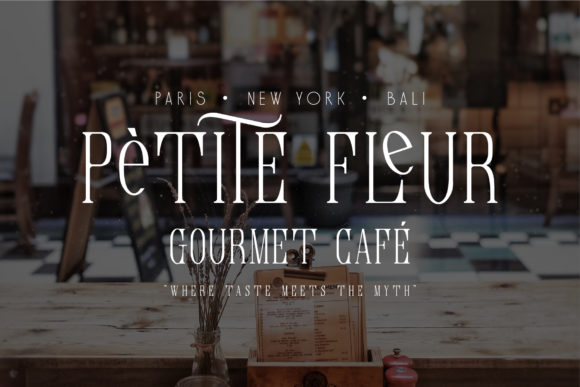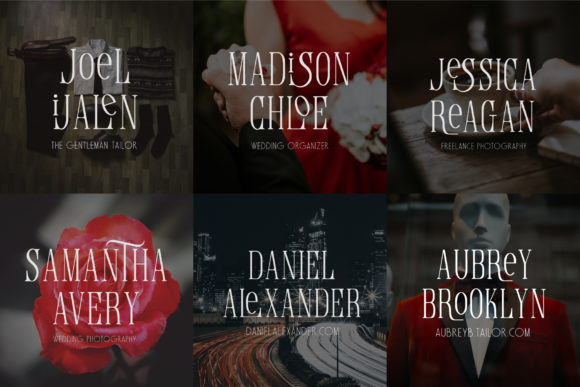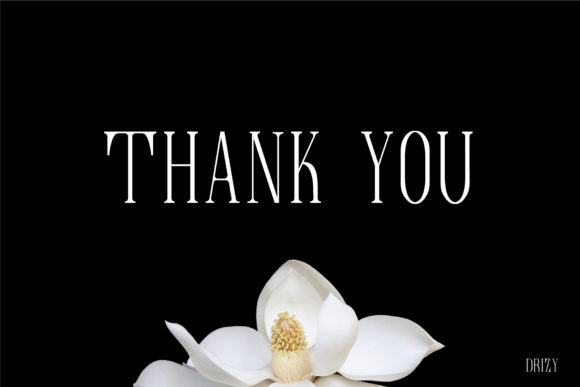
Introduction to Love & Live Font
Love & Live is a romantic and delicate serif font with an elegant touch.
Fall in love with its unique charm .
Key Features of Love & Live Font
Why Choose Love & Live Font?